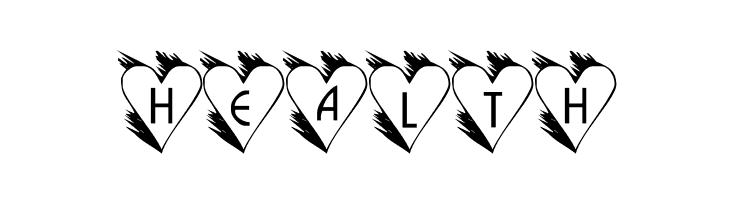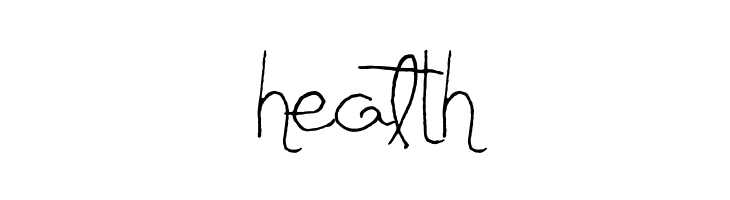
A bold, expressive script font with a playful and dynamic style.
A bold, sketch-like font with dynamic, irregular strokes and a hand-drawn feel.
A bold, hand-drawn font with dynamic strokes and a playful, artistic style.
Decorative script with calligraphic, festive brush strokes.
A playful, handwritten font with smooth, rounded edges and a casual feel.
A bold, playful handwritten font with rounded, consistent strokes.
A playful, bold handwritten font with thick strokes and a friendly appearance.
Playful, rounded sans-serif with a hand-drawn, informal look.
A playful, bold handwritten font with dynamic strokes.
A playful, hand-drawn font with decorative elements and a bold, friendly style.
A whimsical and elegant script font with flowing, interconnected letters.
A decorative, thorny font with a gothic and edgy style.
A decorative, thorny, and italicized font with a bold and edgy appearance.
A bold, angular font with a dynamic and geometric style.
A bold, edgy font with sharp, angular edges and a graffiti-inspired style.
A fluid and elegant cursive font with a handwritten appearance.
A bold, Art Deco-inspired font with high contrast and elegant, narrow forms.
A bold, Art Deco-inspired font with high contrast and elegant, elongated forms.
A modern, decorative script font with tall, flowing letterforms and playful swashes.
A modern, geometric font with clean lines and a compact appearance.
Tall, whimsical handwritten script with playful curves.
A playful font with paw prints on bold, rounded letters, perfect for pet-related themes.
A playful font with letters inside paw prints, perfect for fun and friendly designs.
A playful, casual handwritten font with smooth, consistent strokes.
A high-contrast, modern-classic font with elegant elongated uppercase and creative lowercase letters.
A bold, geometric font with a pixelated, retro video game aesthetic.
Elegant decorative script font.
( Fonts by Kotak Kuning Studio - kotakkuning.com - Personal-use only. For commercial use please contact owner. )
A dynamic and flowing script font with elegant, cursive letterforms.
( Fonts by David Kerkhoff - www.hanodedphotography.com )
A dynamic, handwritten font with irregular strokes and artistic flair.
( Fonts by Typographer Mediengestaltung - Personal-use only. For commercial use please contact owner. )
A bold, impactful font with thick strokes and a modern style.
( Fonts by Typographer Mediengestaltung - Personal-use only. For commercial use please contact owner. )
A bold, contoured font with a strong visual presence.
A modern, bold sans-serif font with uniform stroke width and clear characters.
A playful, elegant script font with a handwritten touch.